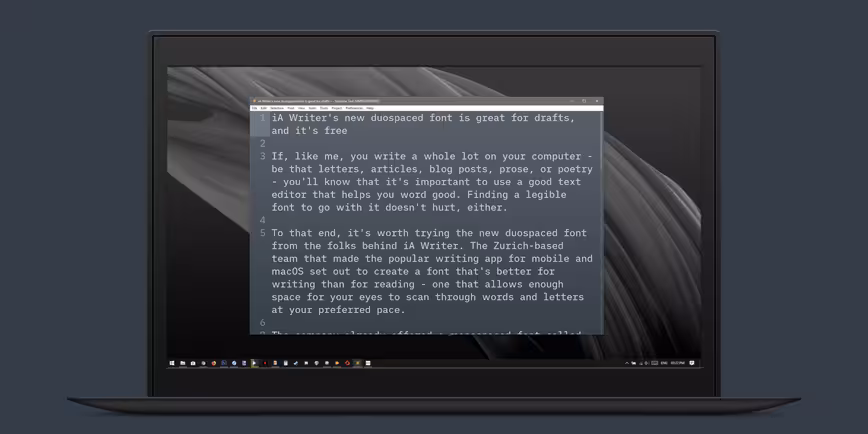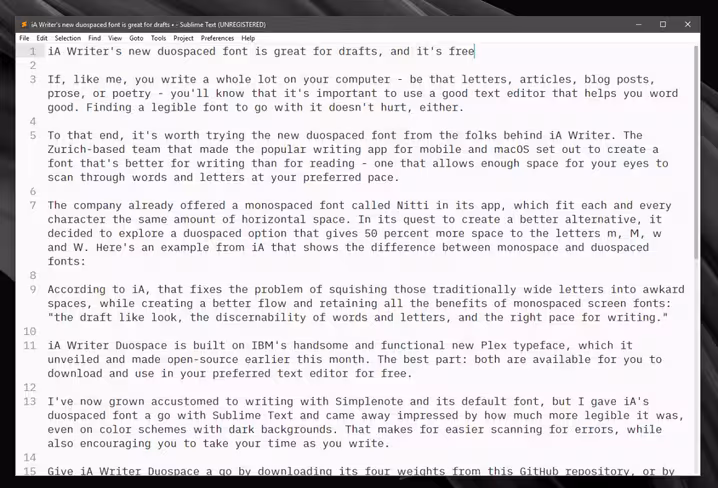
iA Writer’s new duospaced font is great for drafts, and it’s free
If, like me, you write a whole lot on your computer – be that letters, articles, blog posts, prose, or poetry – you’ll know that it’s important to use a good text editor that helps you word good. Finding a legible font to go with it doesn’t hurt, either.
To that end, it’s worth trying the new duospaced font from the folks behind iA Writer. The Zurich-based team that made the popular writing app for mobile and macOS set out to create a font that’s better for writing than for reading – one that allows enough space for your eyes to scan through words and letters at your preferred pace.
The company already offered a monospaced font called Nitti in its app, which fit each and every character the same amount of horizontal space. In its quest to create a better alternative, it decided to explore a duospaced option that gives 50 percent more space to the letters m, M, w and W. Here’s an example from iA that shows the difference between monospace and duospaced fonts:
According to iA, that fixes the problem of squishing those traditionally wide letters into awkward spaces, while creating a better flow and retaining all the benefits of monospaced screen fonts: “the draft like look, the discernibility of words and letters, and the right pace for writing.”
iA Writer Duospace is built on IBM’s handsome and functional new Plex typeface, which it unveiled and made open-source earlier this month. The best part: both are available for you to download and use in your preferred text editor for free.
I’ve now grown accustomed to writing with Simplenote and its default font, but I gave iA’s duospaced font a go with Sublime Text and came away impressed by how much more legible it was, even on color schemes with dark backgrounds. That makes for easier scanning for errors, while also encouraging you to take your time as you write.